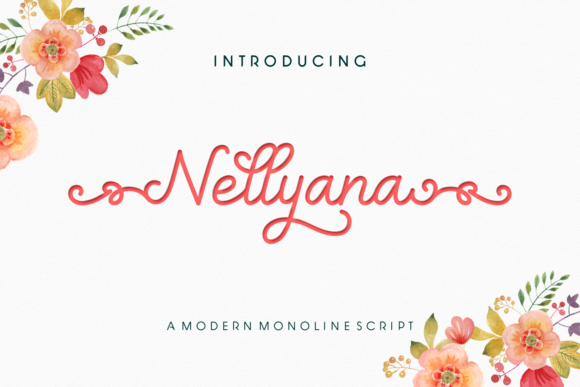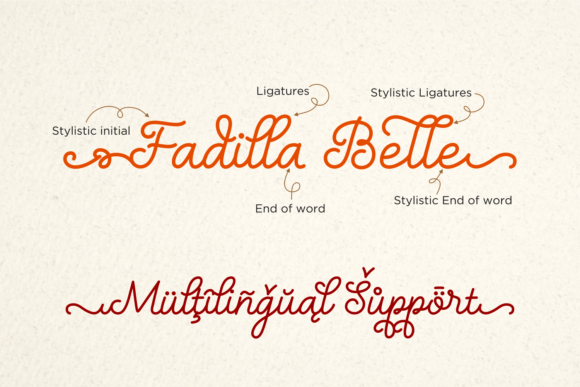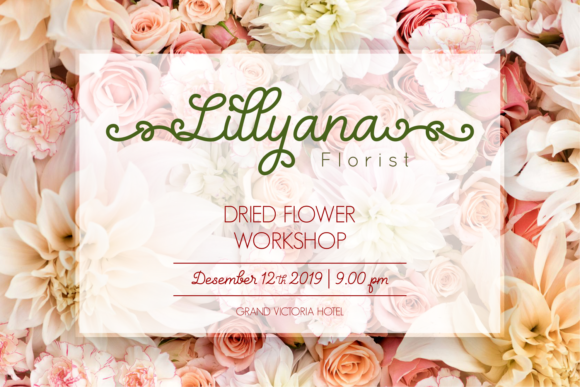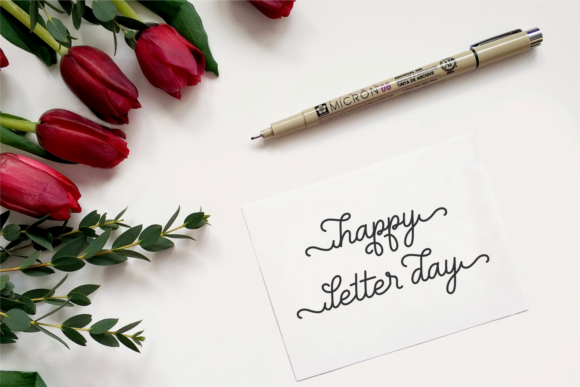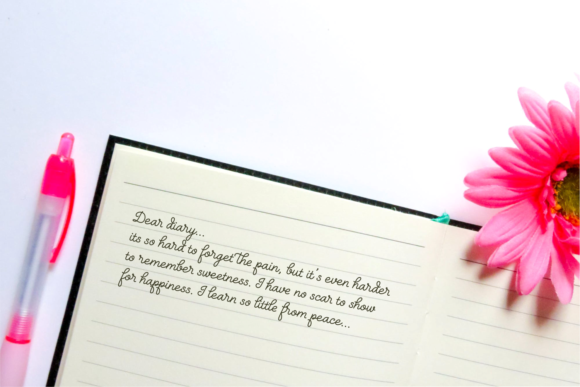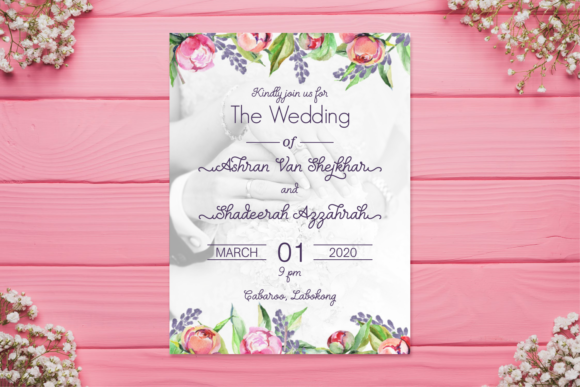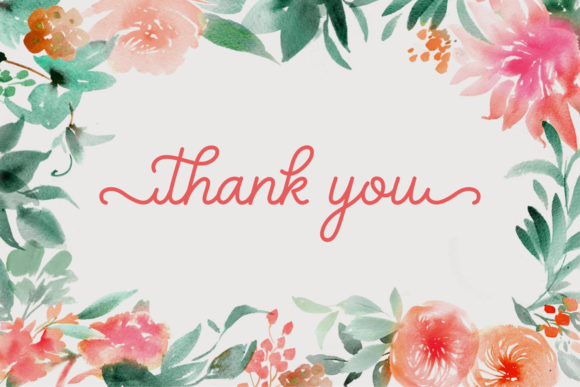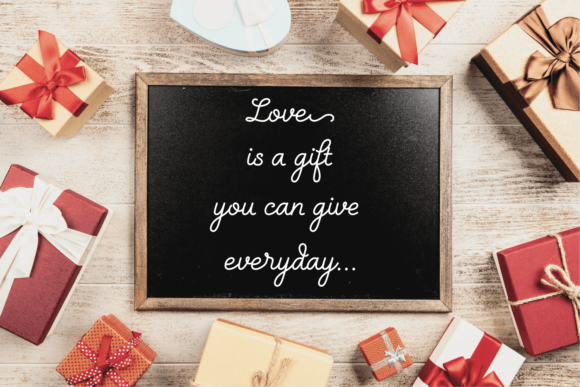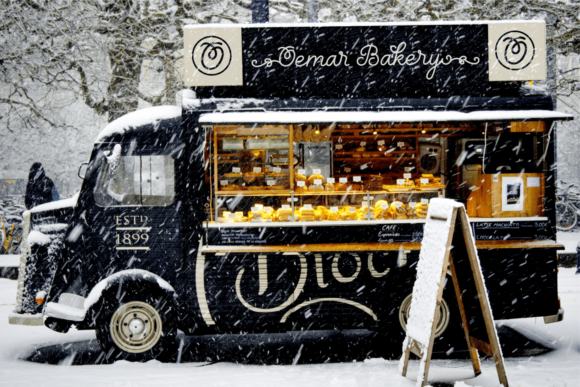
HomeScript FontsNellyana Script Font Script Fonts Nellyana Script Font FacebookXPinterestWhatsApp Nellyana Script Font Poster 2 Nellyana Script Font Poster 3 Nellyana Script Font Poster 4 Nellyana Script Font Poster 5 Nellyana Script Font Poster 6 Nellyana Script Font Poster 7 Nellyana Script Font Poster 8 Nellyana Script Font Poster 9 About Nellyana Script Font Inspired by tulips, Nellyana is a modern monoline script featuring beautiful ornaments. DOWNLOAD NOW People also explored Brondelf Font Retquizer Font Ferrum Font Muinell Font Bones Party Font Baby Haland Font Cabrito Clarkson Dheli Font Alone Font 398 0 TagsNellyana Script Font Previous articlePhotoricies FontNext articleHillbear Font LEAVE A REPLY Cancel reply Comment: Please enter your comment! Name:* Please enter your name here Email:* You have entered an incorrect email address! Please enter your email address here Website: Save my name, email, and website in this browser for the next time I comment. Personal Use Free Adventure Font Personal Use Free Read more about this font Eits Personal Use Free Read more about this font Krabuler Personal Use Free Read more about this font Blast Personal Use Free Read more about this font BLOG Fonts That Capture the Spirit of New York City New York City is more than just a place—it’s an experience, a rhythm, a visual language... How to Cut Any Font on Cricut: Convert a Font to SVG (Free) Transform Your Website: Elevate Your Typography with 7 Best Web Font Generators Where to Buy American Fonts Online in 2024